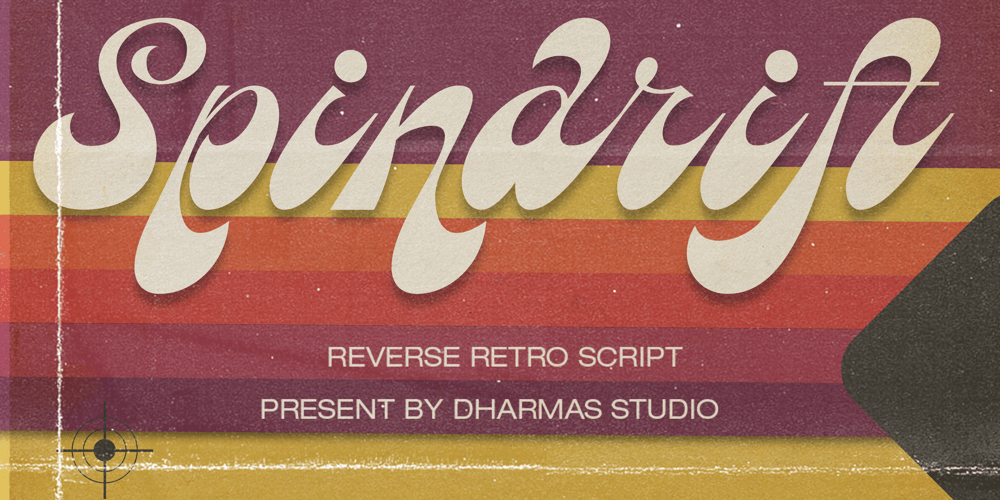
Spindrift Font Family was designed by Ahmad Jamaludin and published by Ahmad Jamaludin. Spindrift contains 1 styles and family package options. Spindrift – Incredibly versatile, making it a perfect fit for various projects. Whether you’re working on a cover magazine, brochure, logo, headline, or quotes, this font adds a touch of personality and flair. It shines as a stand-alone display font and effortlessly enhances short paragraphs or content.Featured: Spindrift Main File Unique Alternates and Ligatures Instructions (Access special characters, even in circuit design) Letters, numbers, symbols, and punctuation Multilingual Support Thank you!